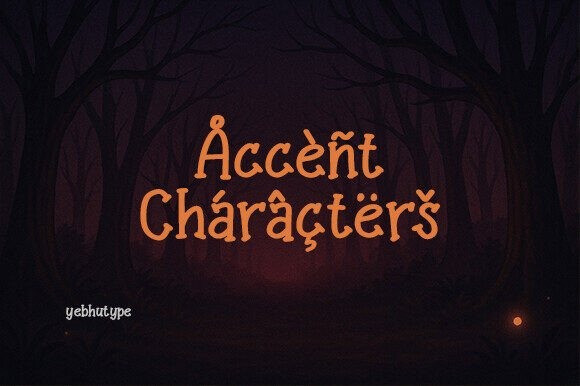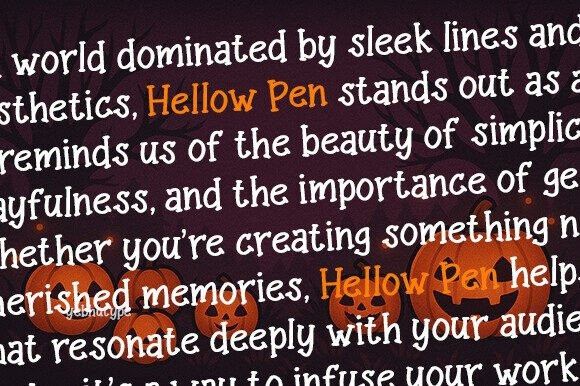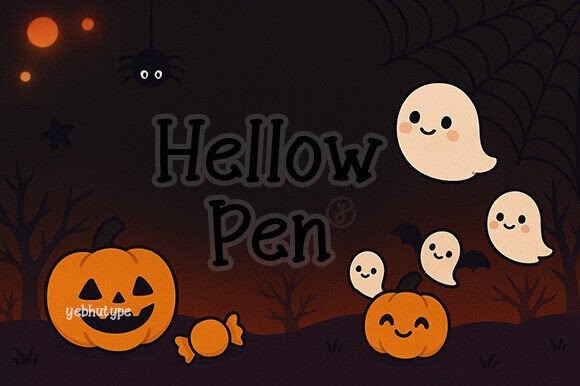
Hellow Pen Font
Hellow Pen Font, a delightful handwritten script font that captures the essence of warmth, friendliness, and natural charm. Lovingly crafted to evoke feelings of approachability and connection, Hellow Pen is more than just a font—it’s a celebration of all things personal, inviting, and heartfelt. With its soft curves, flowing strokes, and handcrafted details, this typeface brings a touch of authenticity and personality to every word. Whether you’re designing for branding, crafting social media graphics, or adding a personal touch to your creative projects, Hellow Pen effortlessly conveys charm and sincerity.
Hellow Pen Font is inspired by the simple joys in life—handwritten notes passed between friends, the spontaneity of childhood scribbles, and the warmth of genuine communication. Its design embodies a sense of natural ease and carefree fun, making it perfect for designs that want to feel approachable, friendly, and full of heart. Like receiving a handwritten letter from a loved one, Helllow Pen leaves a lasting impression of warmth and delight.